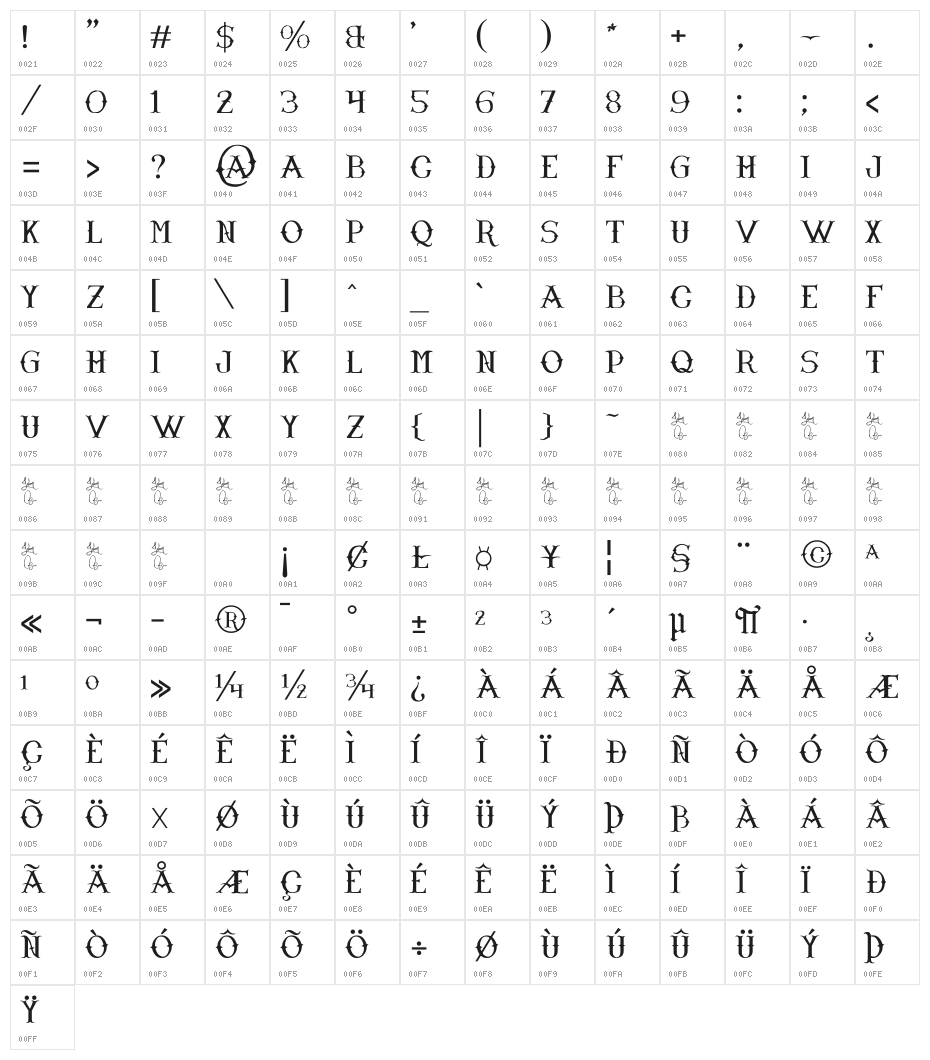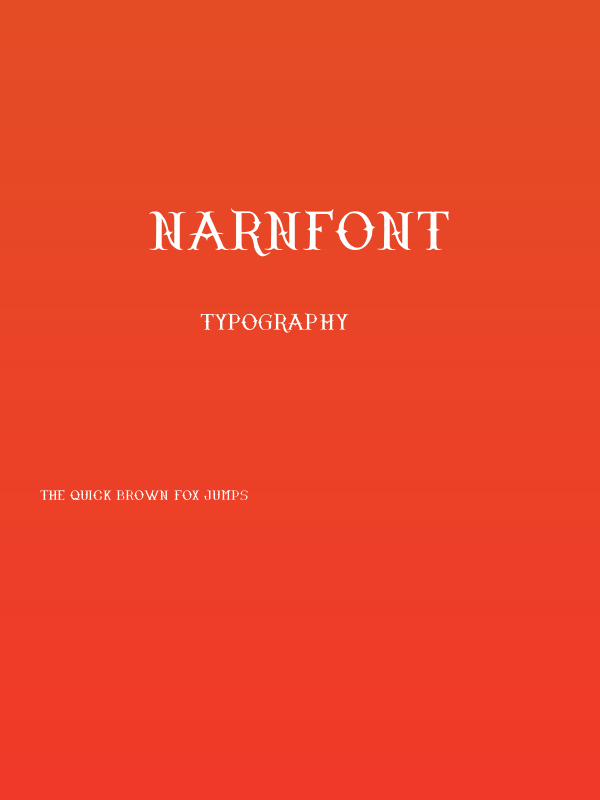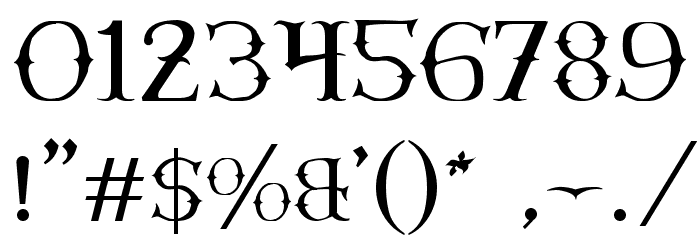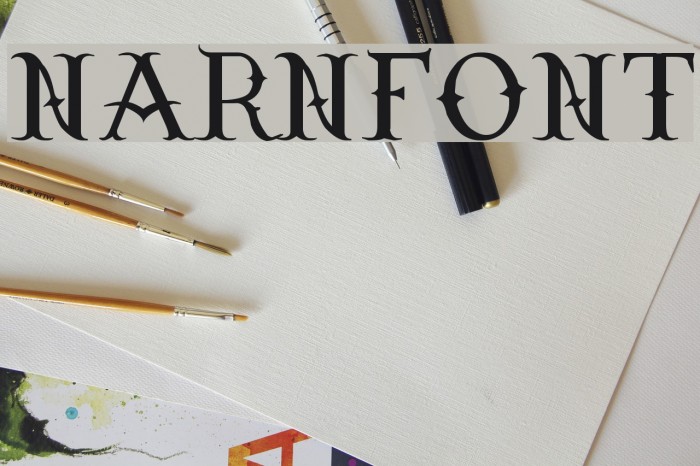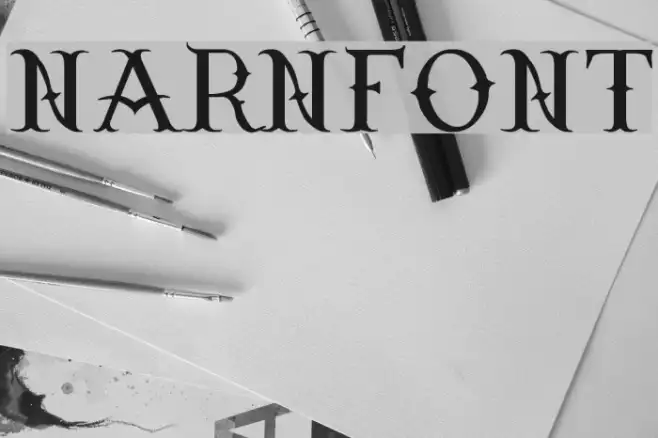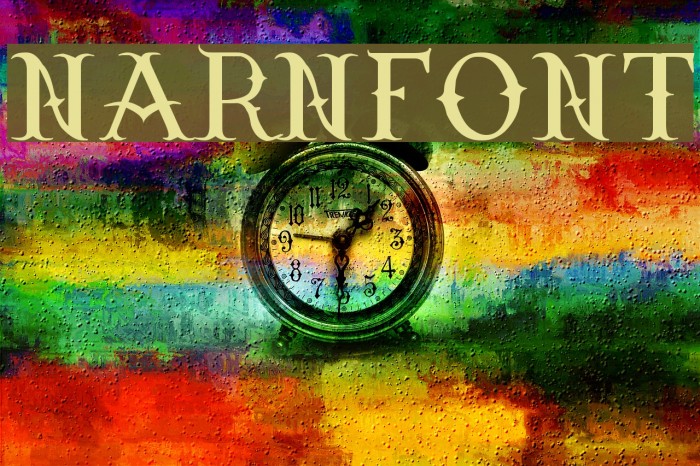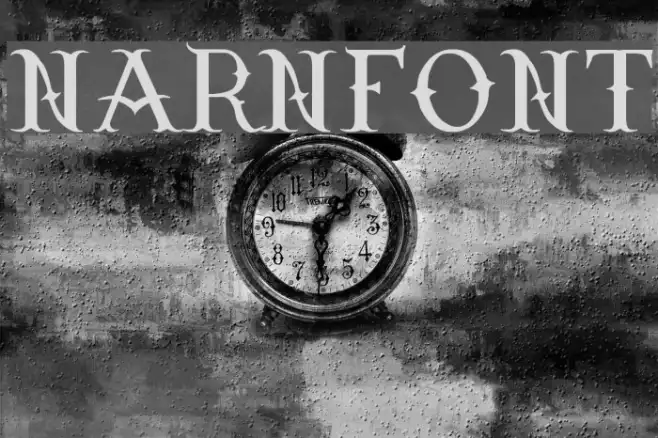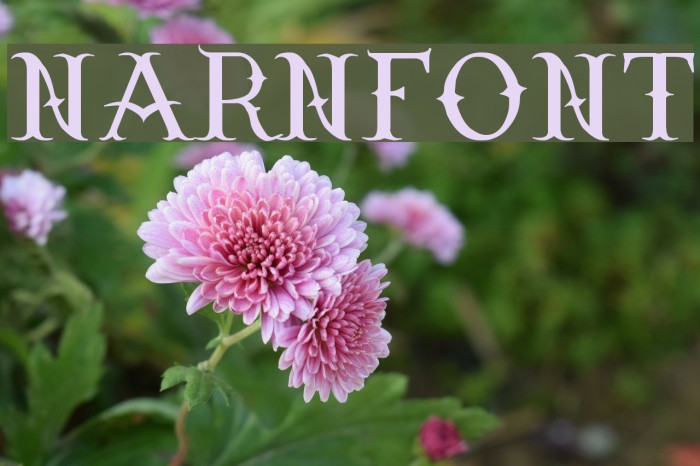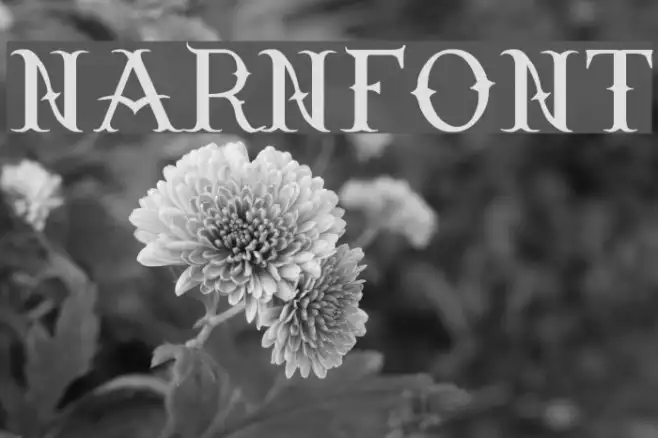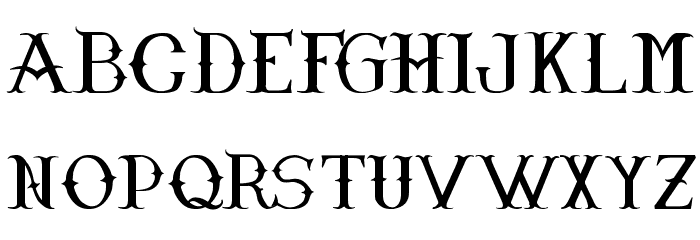
Narnfont Font
Narnfont Description
This font features a distinctive and ornate design, characterized by sharp, pointed serifs and intricate detailing within each character. The uppercase letters exhibit a bold and dramatic flair, while the lowercase letters maintain a consistent style, enhancing readability. Numbers and special characters are crafted with the same attention to detail, ensuring a cohesive look across all elements. The overall aesthetic is reminiscent of medieval or fantasy themes, making it ideal for projects that require a touch of elegance and mystery.
| Proposed Projects | Perfect for fantasy book covers, themed event invitations, or branding for products that evoke a sense of mystery and elegance. |